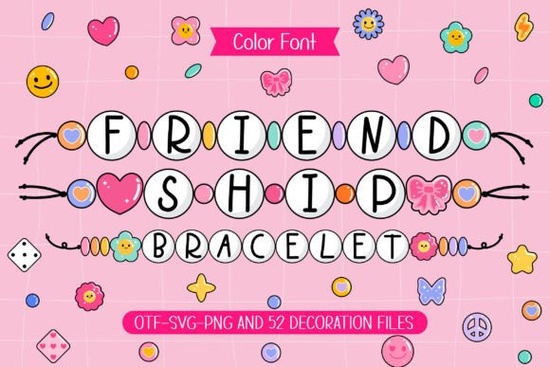
If you're looking for a font that feels handmade, cheerful, and full of personality especially for projects tied to friendship, summer crafts, or heartfelt gifting the Friendship Bracelet font is a natural fit. It’s not just another playful script; it’s designed to echo the bright, tactile charm of real beaded bracelets each letter shaped like a cheerful, rounded bead in its own little color. That warmth comes through whether you’re printing on fabric, cutting vinyl, or layering elements in scrapbook layouts.
What makes this font work so well for crafters and small makers?
First, it’s intentionally approachable not overly stylized or hard to read at small sizes. The OTF file works smoothly in design tools like Cricut Design Space, Silhouette Studio, Adobe Illustrator, and even free options like Canva (when uploaded as a custom font). And because it includes matching doodle cliparts tiny hearts, beads, knots, and friendship symbols you don’t need to hunt for coordinating graphics. Everything lives in one download.
This kind of cohesion matters when you're designing things like:
- Handmade greeting cards for birthdays or “just because” moments
- T-shirts and tote bags for friend groups, camps, or school clubs
- Scrapbook pages documenting memories with close friends
- Print-on-demand mugs, stickers, or phone cases with light-hearted, personal messaging
- DIY party decorations think banners, cupcake toppers, or favor tags
It sits comfortably alongside other colorful fonts and hand-drawn typefaces, but stands out because of its consistent bead-inspired rhythm. Unlike many “fun” fonts that rely on heavy swashes or uneven spacing, Friendship Bracelet keeps things balanced and legible even in all-caps or stacked text layouts.
How do you use it without overcomplicating things?
You don’t need advanced typography knowledge. Start simple: pair it with a clean sans-serif (like Montserrat or Open Sans) for contrast say, a bold “Best Friends Forever” headline in Friendship Bracelet, followed by smaller body text in something neutral. For t-shirt mockups, try placing the font along a curved path to mimic the wrap of an actual bracelet. In scrapbooking, layer the included doodles behind or beside text blocks for subtle texture.
If you're selling designs online, this font helps your listings feel more cohesive and intentional. Buyers notice when fonts and graphics match they signal care and attention, which builds trust. You’ll also find it works especially well for niches like friendship gifts, summer craft bundles, teen apparel, and handmade stationery.
Where does it fit among similar fonts on Creative Fabrica?
It’s part of a broader family of friendly, accessible typefaces but with a specific visual hook. You’ll see related styles like Sunshine Doodle Font or Berry Bunch Font, but Friendship Bracelet leans more into symmetry and repetition like the gentle rhythm of threading beads one by one. That makes it especially suited for rhythmic phrases (“You + Me”, “Side by Side”, “Made With Love”) rather than long paragraphs.
For those already exploring colorful fonts on Creative Fabrica, this one adds a distinct, tactile layer not just color, but implied texture and craft. It’s the kind of font you reach for when you want your design to feel like something someone made with care, not just clicked together.
A few practical notes before you start designing
- The doodle cliparts are PNGs with transparent backgrounds ready to drop into any layout without extra editing.
- Because each letter has a soft, rounded shape, avoid using it at very small sizes (<12pt) for printed text stick to larger applications like headlines, labels, or appliqué outlines.
- Test how it cuts in your machine software first some Cricut users find slight adjustments to letter spacing help with clean vinyl weeding.
If you’ve used other bead- or string-inspired fonts before, you’ll recognize the care in how this one balances playfulness and function. It doesn’t try to do everything just one thing really well: make friendship feel visible, colorful, and handmade.